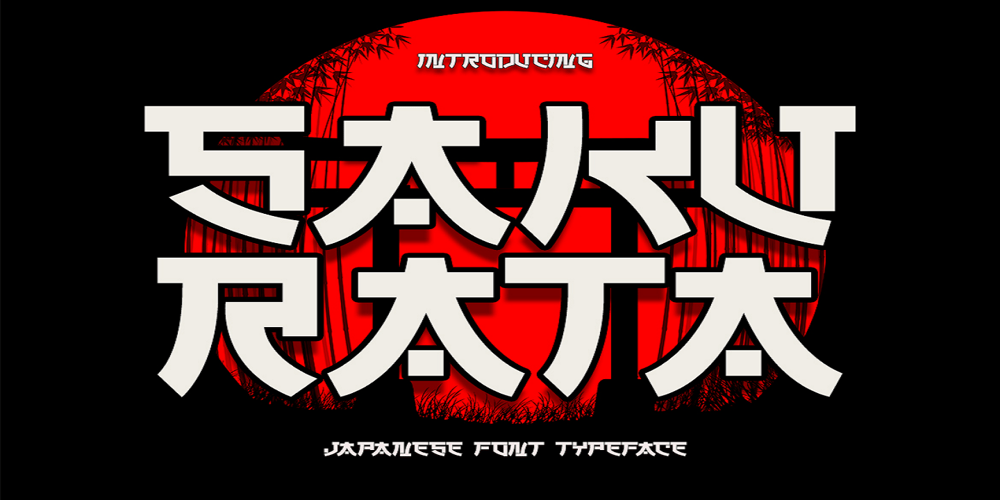
Sakurata Font Family was designed by Saiful Anwar and published by Sealoung. Sakurata contains 1 styles and family package options. Sakurata is a unique and chunky lettered display font. Add this font to your creative ideas and notice how it will make them stand out!